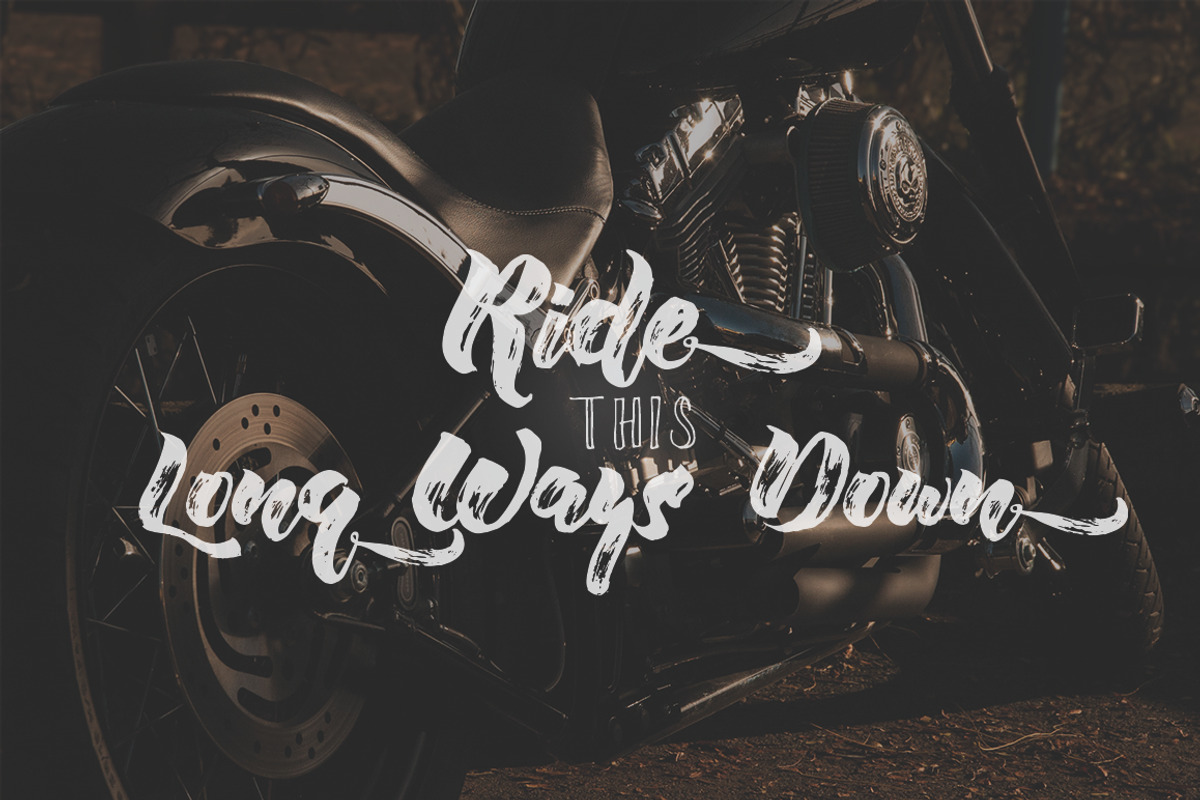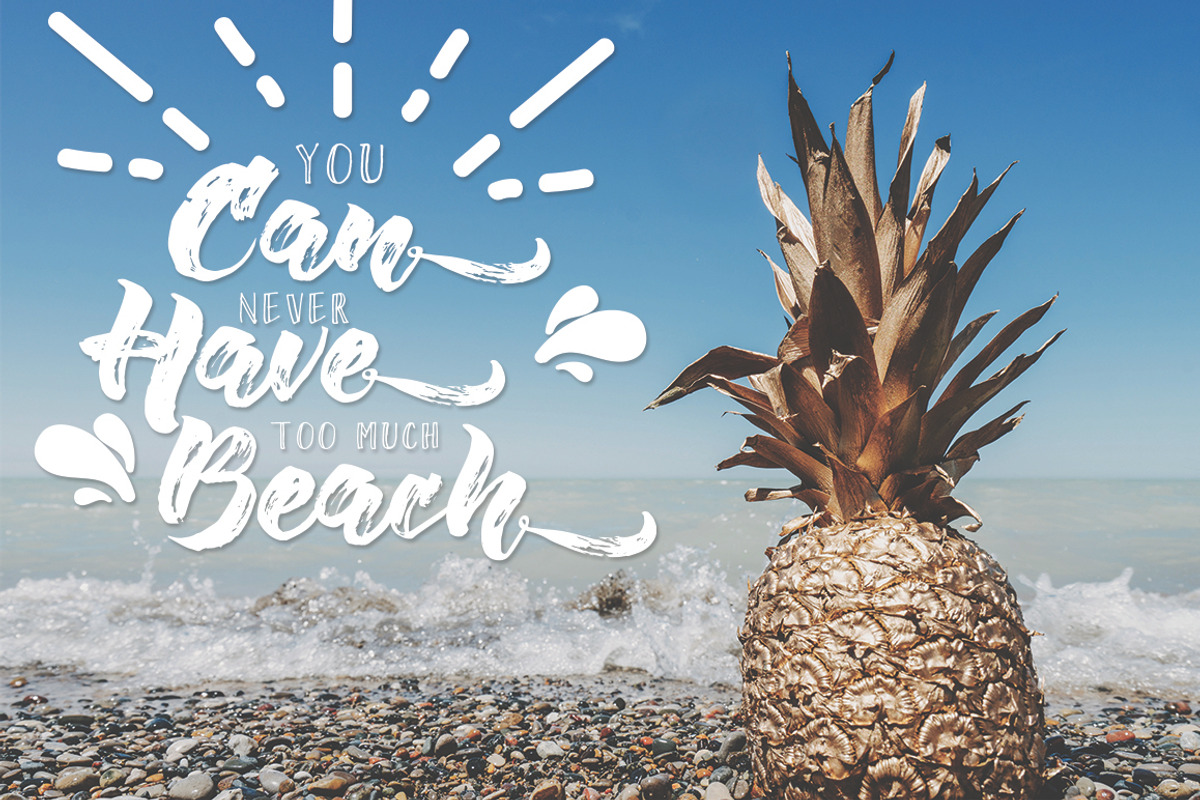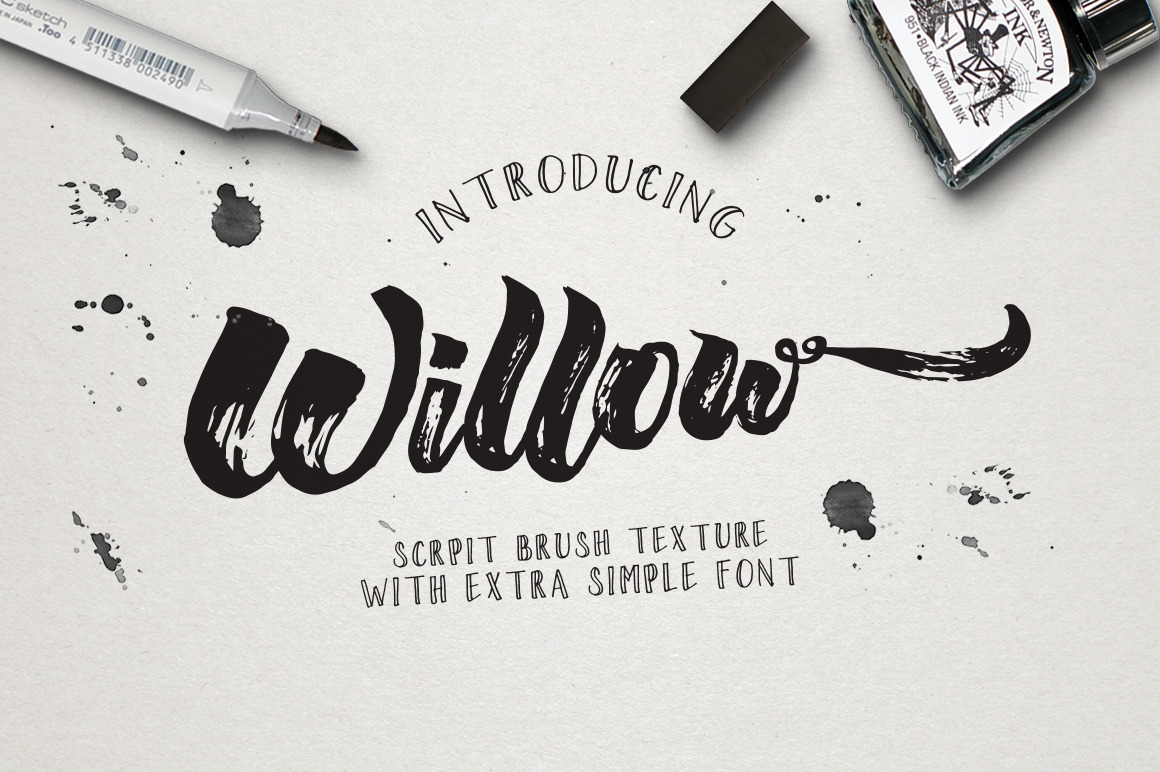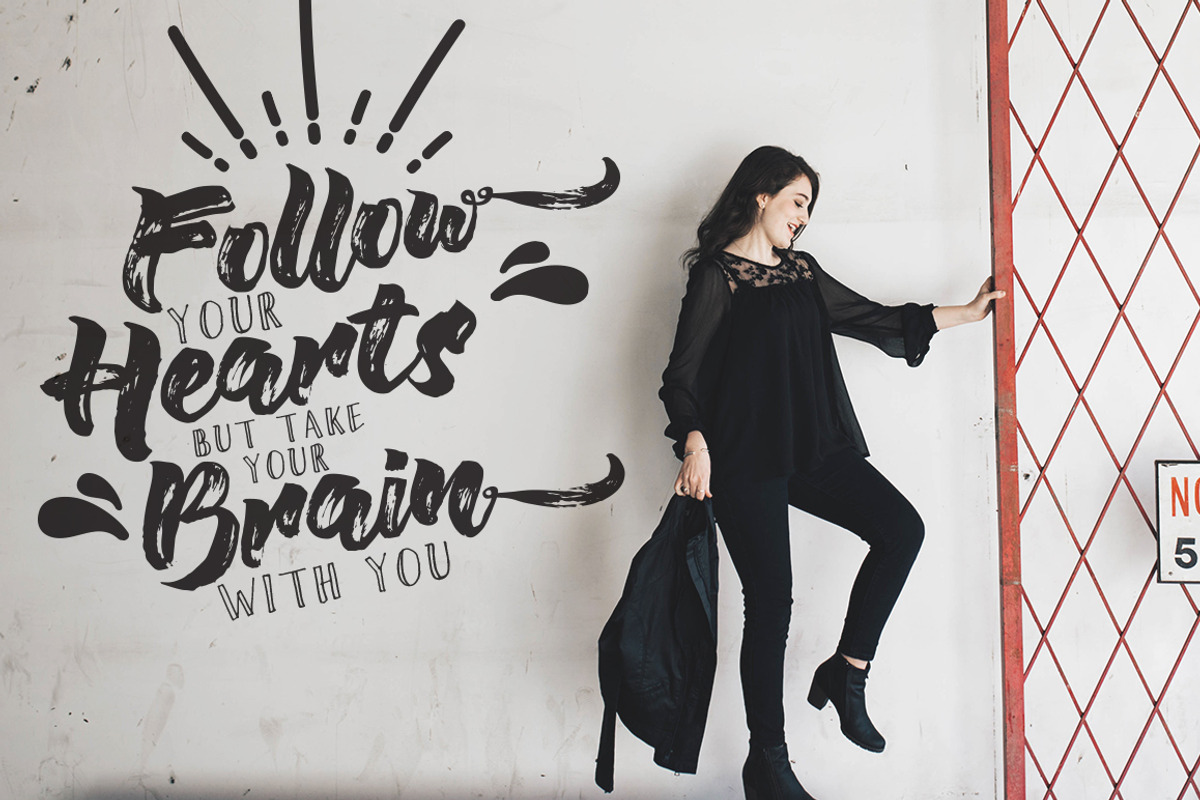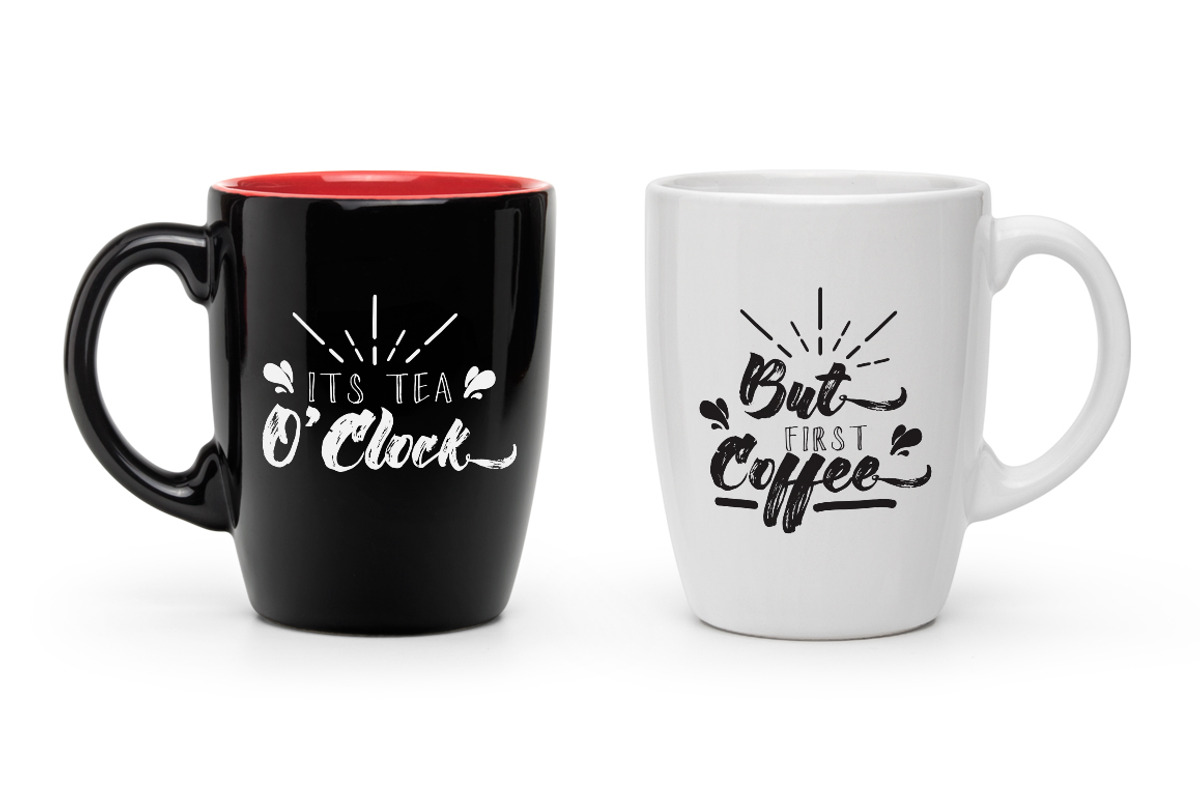
Willow Font Duo
Willow Brush Texture
Introducing a duo of hand-scripted fonts, carefully designed to work together in harmony for creating masterful typographic designs in a flash! This font is suitable for this summer or even for something more macho and feminine. as the author honestly I really like texture in this font that looked a little different, we do not have to edit it again in Photoshop to get the texture brush.
This font are support for multilanguange, and there is also ligature and contextual alternate for some letters. for the ligature you can see at the "MUG MOCKUP" in double "f" character. and for the contextual characters is in the end of the words. But for the regular font is not avaiable in lowercase in it come without any punctuation